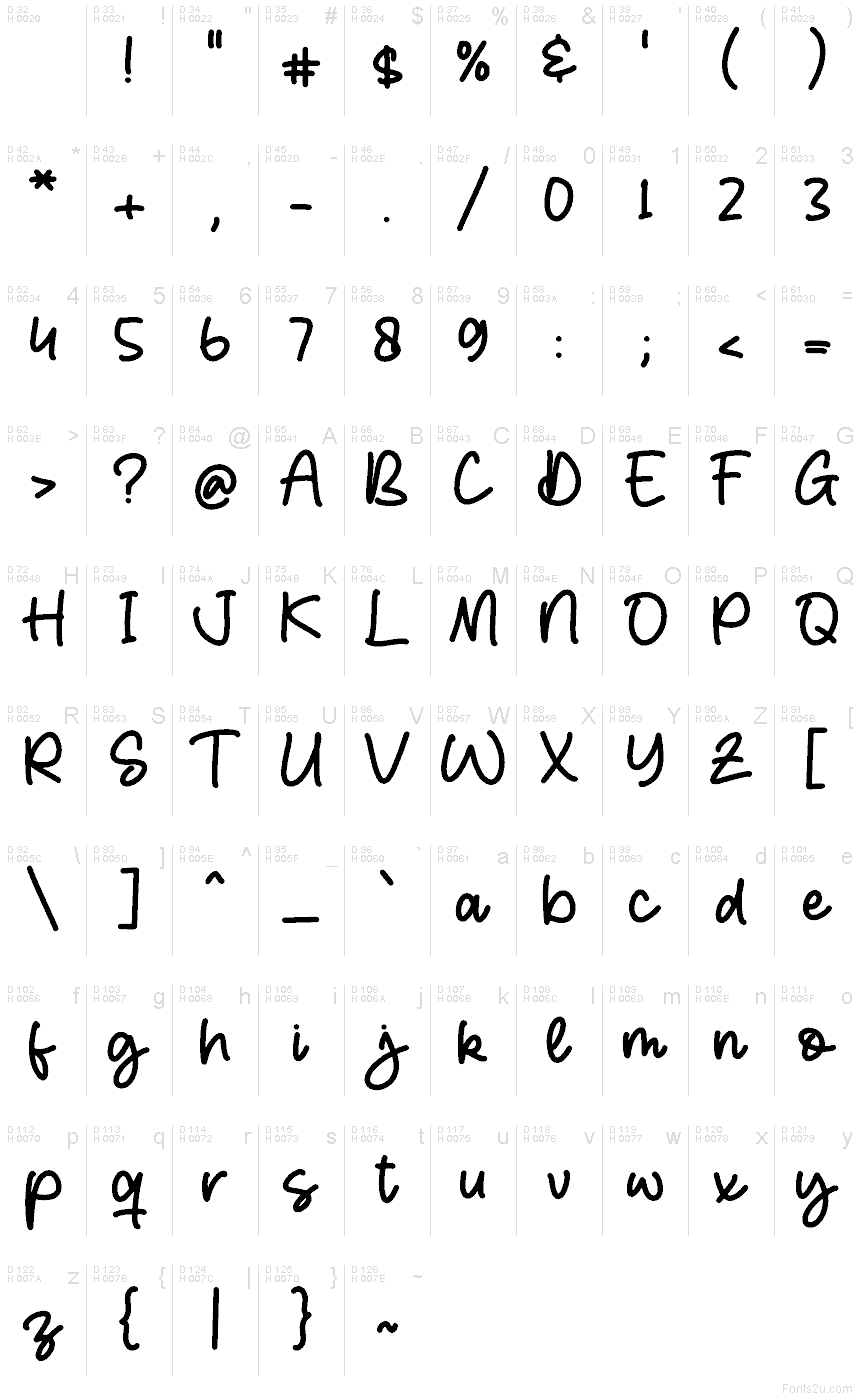
Remonade
Remonade font by Perspectype Studio - Letterena.com is a free handwritten typeface with a bouncy, ink-brush rhythm that feels like notes scrawled on a café chalkboard. Rounded curves, easy loops, and those slightly exaggerated joins give it a fun, friendly energy that still reads clearly at a glance, even in longer words. It feels casual but intentional, like lettering you’d find on small-batch packaging or a thoughtfully designed planner.
Using Remonade, you’ll get a natural fit for lifestyle branding, greeting cards, quote posts, event invitations, product labels, and blog graphics. This free font shines when you give it room to breathe—use larger sizes for headlines and pair it with a clean sans serif for smaller supporting text.